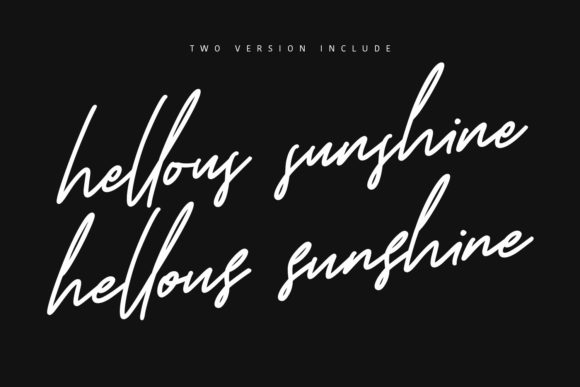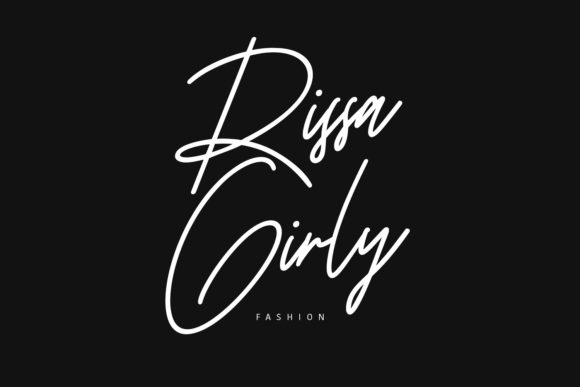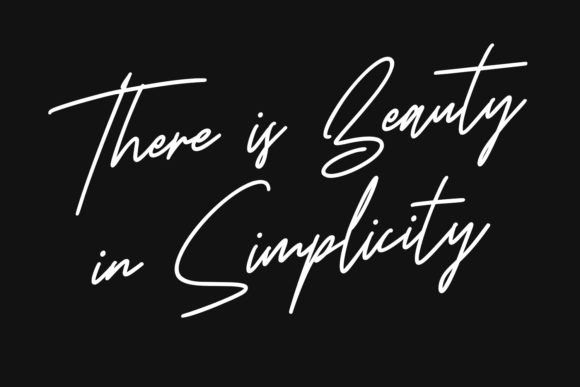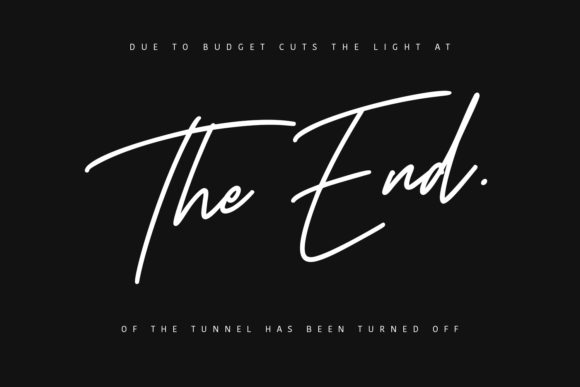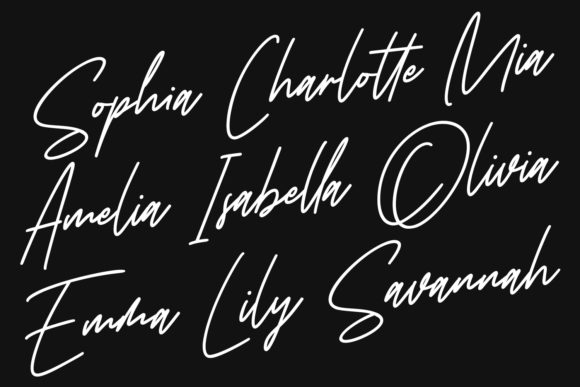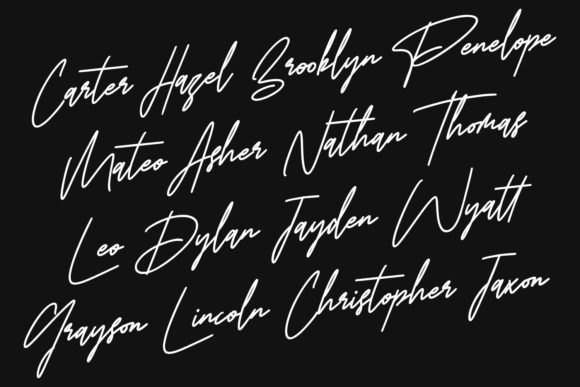
Billy Okma Font: The Elegant Script Font for Your Creative Projects
Are you looking for a font that exudes elegance and charm? Look no further than the Billy Okma font. This stunning script font is a stylish homage to classic calligraphy, making it perfect for a variety of creative projects. In this article, we’ll dive into the world of Billy Okma and explore its features, uses, and benefits.
The Charm of Billy Okma Font
Billy Okma font feels equally charming and elegant. Its authentic feel is reminiscent of traditional calligraphy, making it a great choice for designers and crafters who want to add a touch of sophistication to their work. The font’s elegant strokes and beautiful lettering make it perfect for creating gorgeous wedding invitations, beautiful stationary art, eye-catching social media posts, and cute greeting cards.
Features of Billy Okma Font
The Billy Okma font has several features that make it stand out from other script fonts. Some of its notable features include:
• Elegant strokes: The font features elegant strokes that give it a classic and sophisticated look.
• Beautiful lettering: Each letter is carefully crafted to create a beautiful and harmonious look.
• Authentic feel: The font has an authentic feel that is reminiscent of traditional calligraphy.
• Versatile: The font is versatile and can be used for a variety of creative projects, from wedding invitations to social media posts.
Uses of Billy Okma Font
The Billy Okma font is perfect for a variety of creative projects, including:
• Wedding invitations: The font’s elegant strokes and beautiful lettering make it perfect for creating gorgeous wedding invitations.
• Stationary art: The font can be used to create beautiful stationary art, such as greeting cards, thank-you cards, and postcards.
• Social media posts: The font’s elegant look makes it perfect for creating eye-catching social media posts.
• Greeting cards: The font can be used to create cute and elegant greeting cards for special occasions.
Benefits of Using Billy Okma Font
There are several benefits to using the Billy Okma font in your creative projects. Some of the benefits include:
• Unique look: The font’s elegant strokes and beautiful lettering give it a unique look that sets it apart from other script fonts.
• Easy to read: The font is easy to read, making it perfect for creating readable and elegant text.
• Versatile: The font is versatile and can be used for a variety of creative projects.
• Time-saving: The font can save you time and effort in creating elegant and sophisticated text for your creative projects.
Tips for Using Billy Okma Font
Here are some tips for using the Billy Okma font in your creative projects:
• Use it sparingly: Use the font sparingly to create a focal point in your design.
• Pair it with other fonts: Pair the font with other fonts to create a unique and interesting look.
• Experiment with colors: Experiment with different colors to find the perfect match for your design.
• Pay attention to spacing: Pay attention to spacing to ensure that the text is readable and elegant.
The Billy Okma font is a stunning script font that is perfect for designers and crafters who want to add a touch of elegance and charm to their creative projects. Its elegant strokes, beautiful lettering, and authentic feel make it a great choice for creating gorgeous wedding invitations, beautiful stationary art, eye-catching social media posts, and cute greeting cards. With its versatility, ease of use, and unique look, the Billy Okma font is a great addition to any designer’s toolkit.